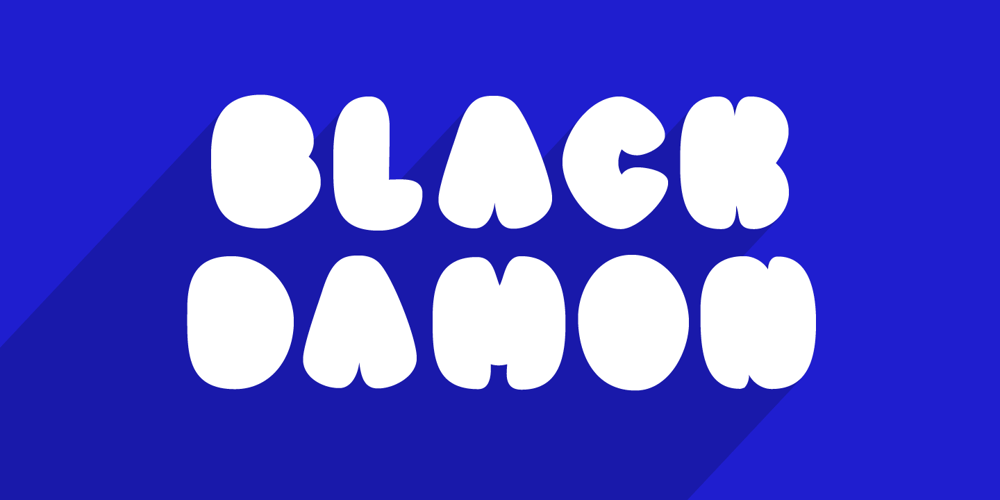
Black Damon Font Family was designed by Jan Willem Wennekes and published by Zeptonn. Black Damon contains 6 styles and family package options. Looking for a big, bold and curvy font? Here’s Black Damon! She is a hand-drawn typeface with explicit curves and angles that still retains softness and has a handcrafted feel. All glyphs are handcrafted by illustrative designer Zeptonn. She might not be your best friend for body text, but still, she won’t hesitate to perform well under pressure. She will make an interesting yet unusual partner for headlines. Awesome and distinctive in use for titles, displays and fresh illustrations. Prepare to make a statement!